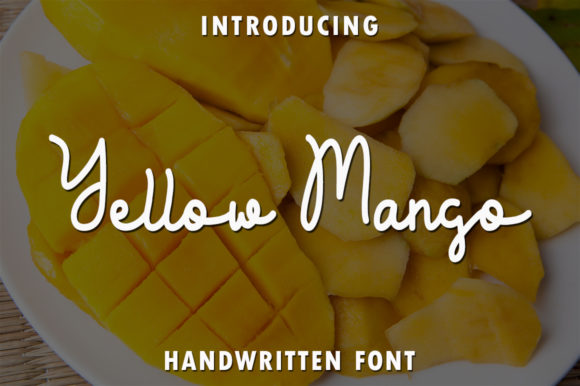
In the realm of typography, where artistry meets expression, allow us to introduce you to Yellow Mango Font – a creation by rangkaiaksara that's poised to redefine your design endeavors. Yellow Mango Font is not merely a font; it's an invitation to unleash your creativity, a gateway to a world of endless possibilities.
Immerse yourself in the allure of this delicate and elegant handwritten font, where each letter is meticulously crafted with a distinct and well-rounded charm. Its enchanting curves and impeccable flow evoke a sense of sophistication and grace, transforming your designs into captivating masterpieces.
Picture the allure of a hand-lettered note, where each word dances across the page with a touch of whimsy and a hint of elegance. Yellow Mango Font embodies this very essence, lending a personal touch to your projects that resonates with warmth and authenticity.
Whether you're a seasoned designer seeking to elevate your work or a novice just starting to explore the world of typography, Yellow Mango Font is your perfect companion. Its incredibly versatile style seamlessly adapts to a myriad of design concepts, from playful and quirky to formal and refined.
Design remarkable logos that exude personality, create eye-catching social media posts that demand attention, or craft stunning invitations that leave a lasting impression. Yellow Mango Font effortlessly enhances any project, adding a touch of sophistication and charm that captivates your audience.
But it's not just about aesthetics – Yellow Mango Font is also incredibly user-friendly. Its smooth flow and effortless legibility ensure that your message is conveyed with utmost clarity. Whether you're designing for print or digital media, Yellow Mango Font ensures your words shine through, leaving an indelible mark on your readers.
So embrace the magic of Yellow Mango Font and embark on a creative journey like no other. Let your imagination soar as you create designs that captivate, inspire, and leave a lasting legacy. The possibilities are boundless, and Yellow Mango Font is your key to unlocking them.